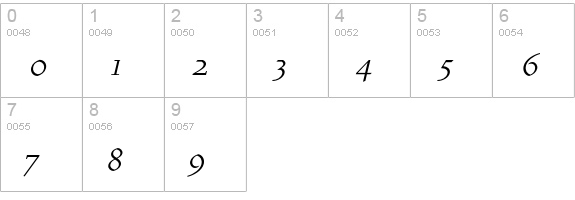
VendettaLightItalic Font Details
VendettaLightItalic font is a mesmerizing blend of elegance and sophistication. This typeface exudes a sense of mystery and intrigue, making it perfect for adding a touch of drama to any design project. Its delicate, slanted strokes give it a unique and artistic feel, making it a standout choice for creative professionals. The VendettaLightItalic font captivates with its graceful curves and intricate details, making it a versatile option for a wide range of applications. Whether you're designing a logo, creating a poster, or crafting a unique website, this font is sure to make a lasting impression. What makes VendettaLightItalic font even more remarkable is that it is available for free! That's right, this stunning typeface can be freely downloaded at FontsMarket.com. With just a few clicks, you can enhance your designs with this exceptional font without spending a dime. So why wait? Give your projects a touch of elegance and sophistication with VendettaLightItalic font. Download it for free today at FontsMarket.com and let your creativity soar to new heights.